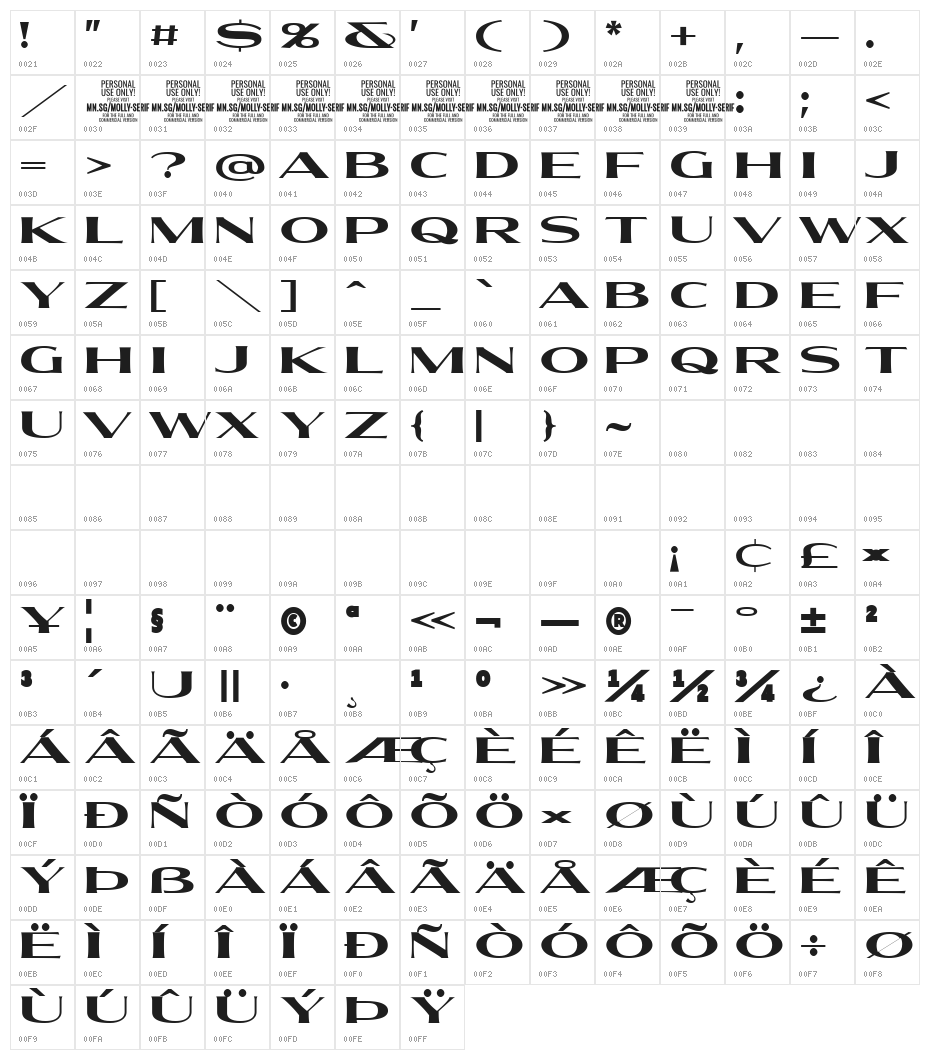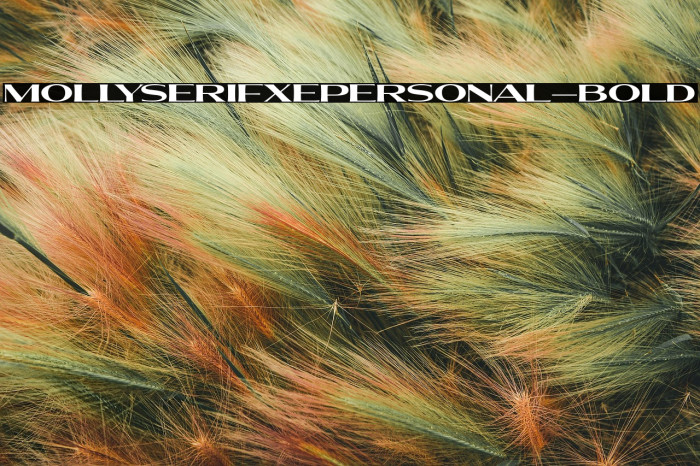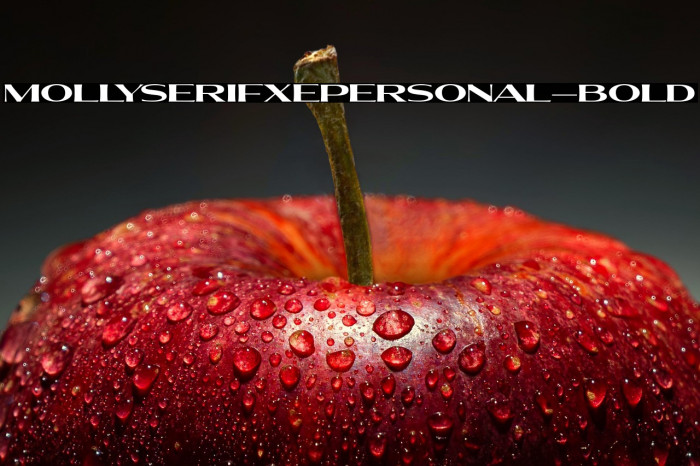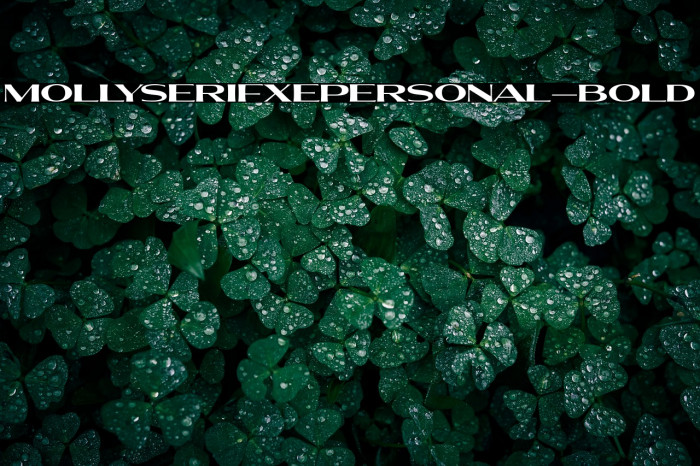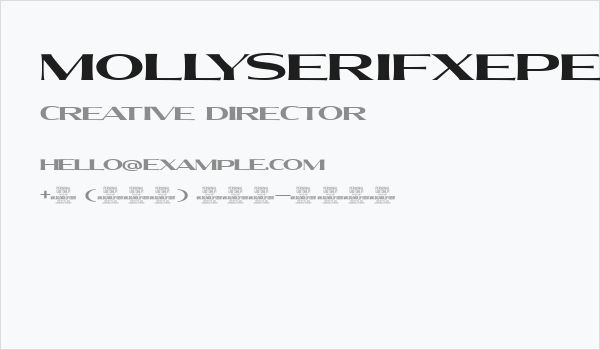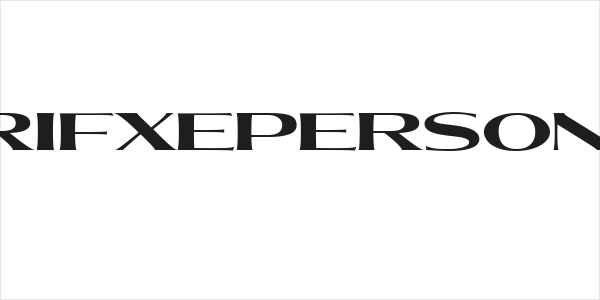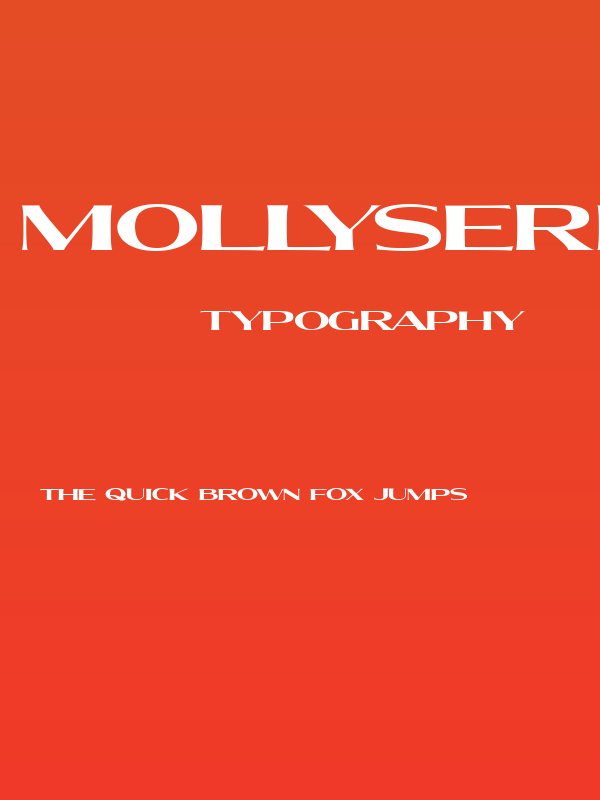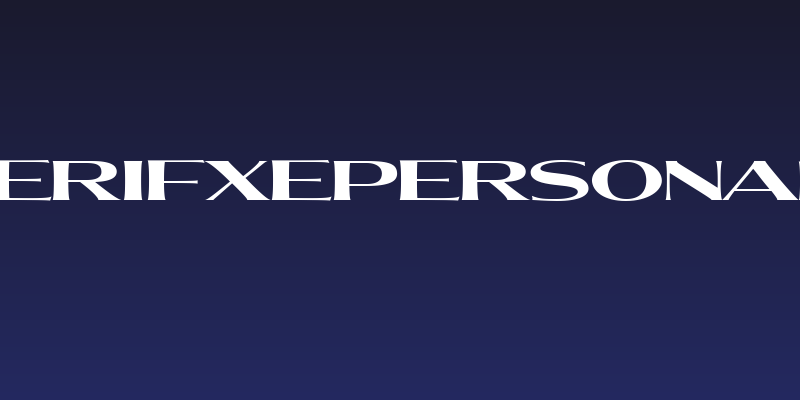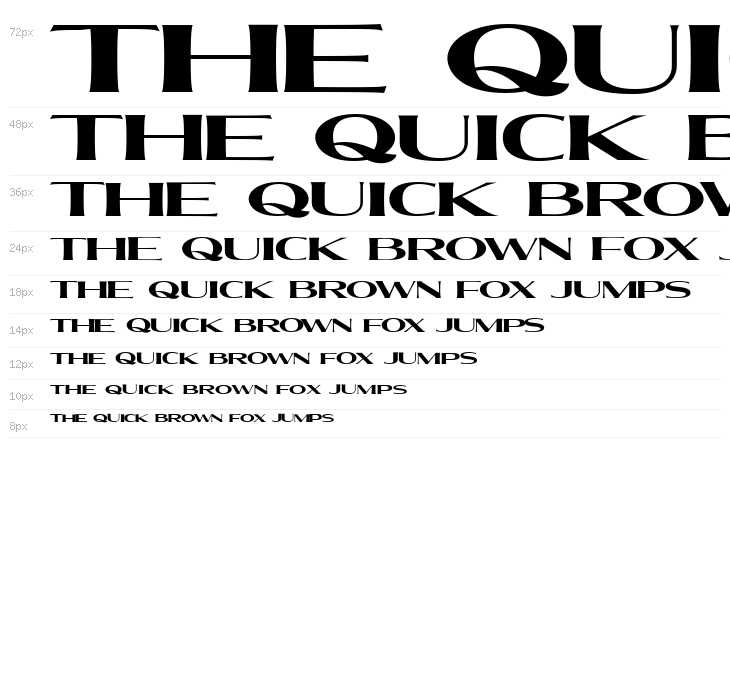
MollySerifXEPERSONAL-Bold Font
MollySerifXEPERSONAL-Bold Description
This font features a bold and dynamic serif style with sharp, angular edges and a distinct modern flair. The uppercase letters are striking, with a strong presence that commands attention. The lowercase letters maintain the same boldness, ensuring consistency throughout the typeface. The numerals are equally bold, making them stand out prominently. Special characters are designed with the same attention to detail, providing a cohesive look across all glyphs. This font's unique style makes it suitable for projects that require a strong visual impact.